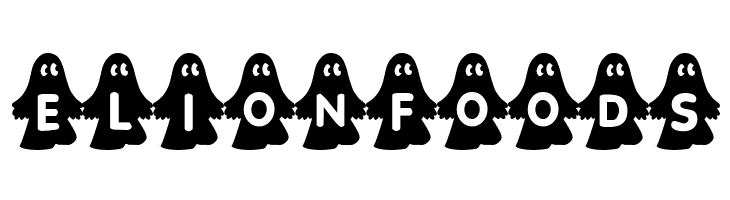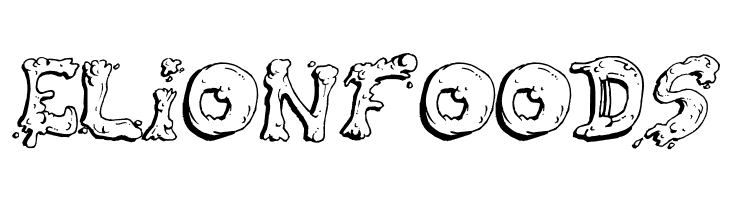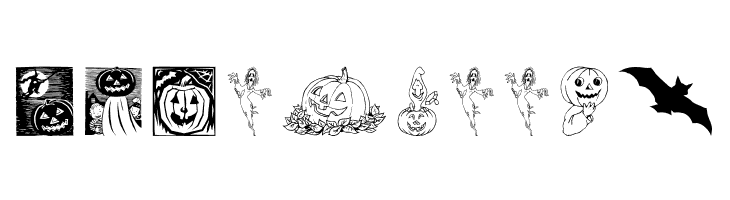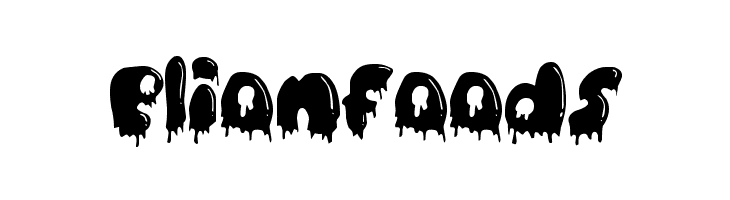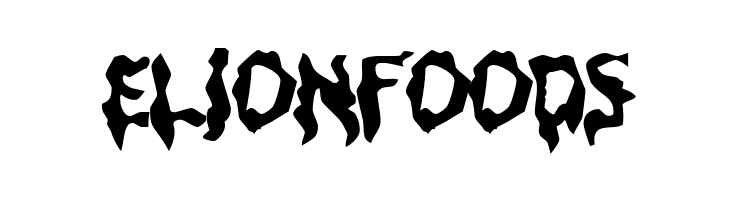
( Fonts by Daniel Gauthier )
A bold, gothic-inspired font with sharp, angular edges and a dramatic flair.
( Fonts by Rob Dobi - Toxic Type - www.dobi.nu )
A playful, blob-like font with a whimsical and cartoonish style.
Halloween-themed decorative dingbat font with playful illustrations.
( Fonts by Daniel Gauthier )
A bold, decorative font with characters resembling bones, perfect for thematic designs.
( Fonts by Sinister Visions - Chad Savage - www.sinisterfonts.com )
A dramatic, jagged font with a hand-drawn, eerie appearance.
( Fonts by Rob Dobi - Toxic Type - www.dobi.nu )
A bold, decorative font with a dripping, playful style.